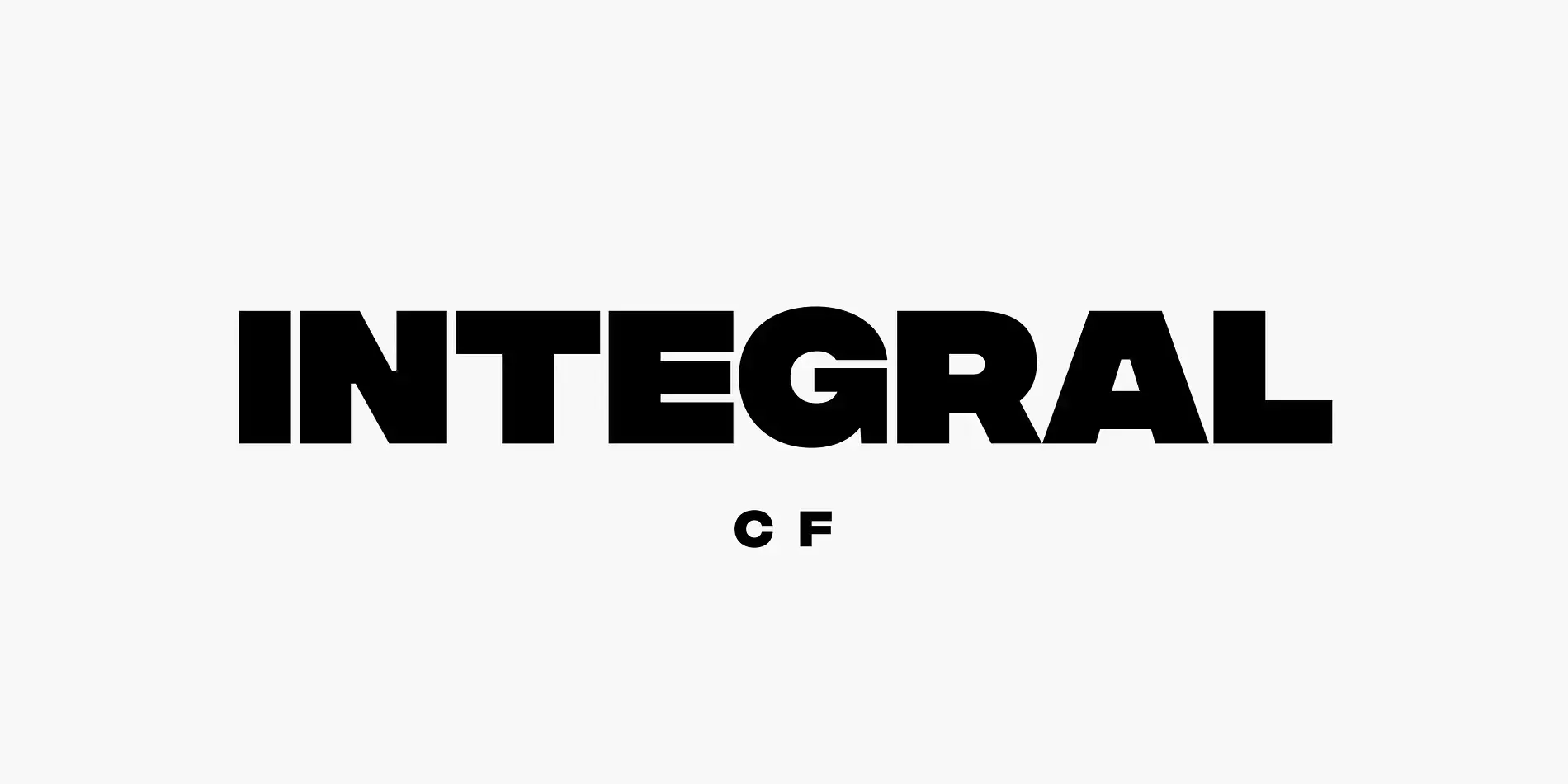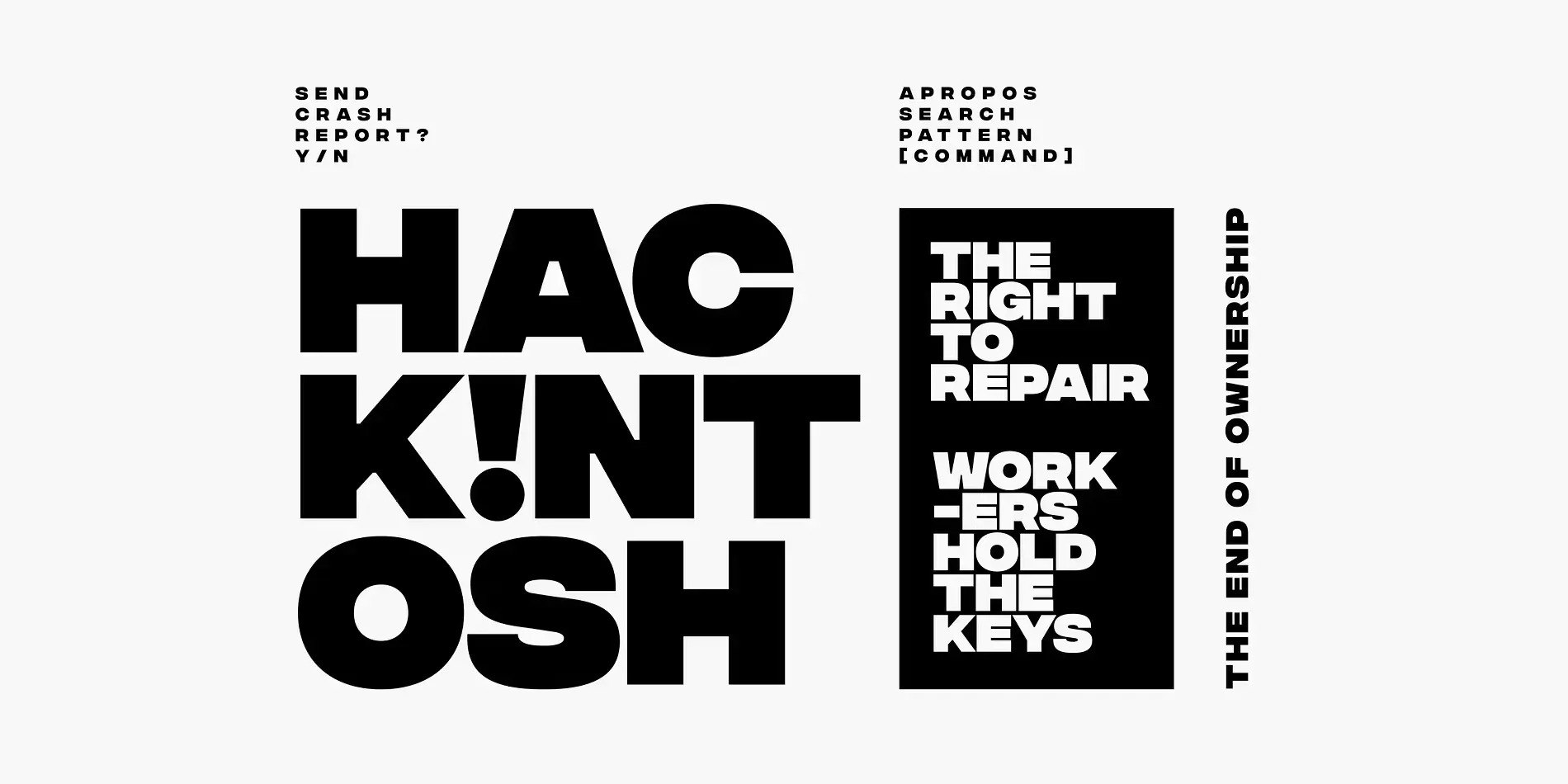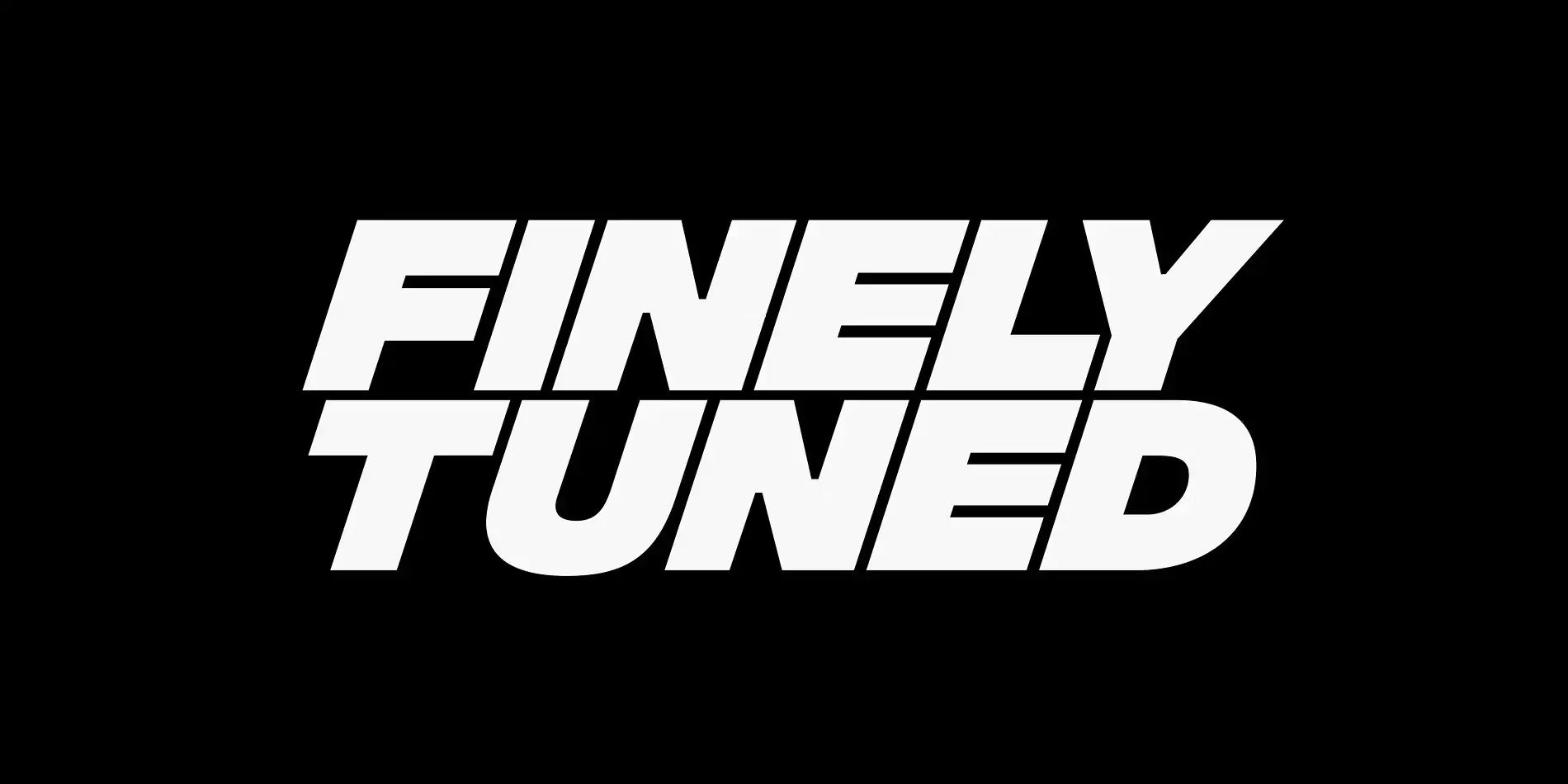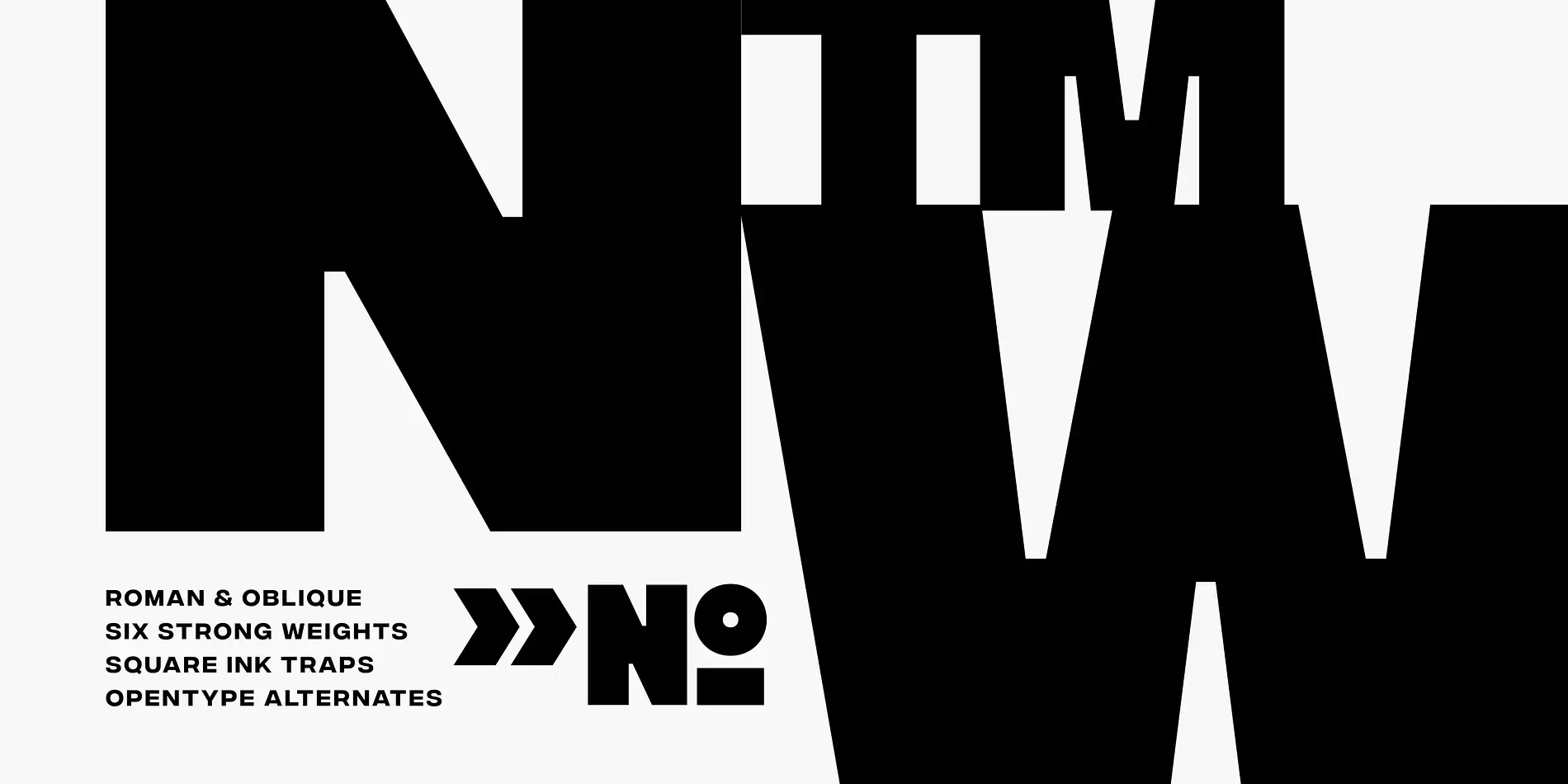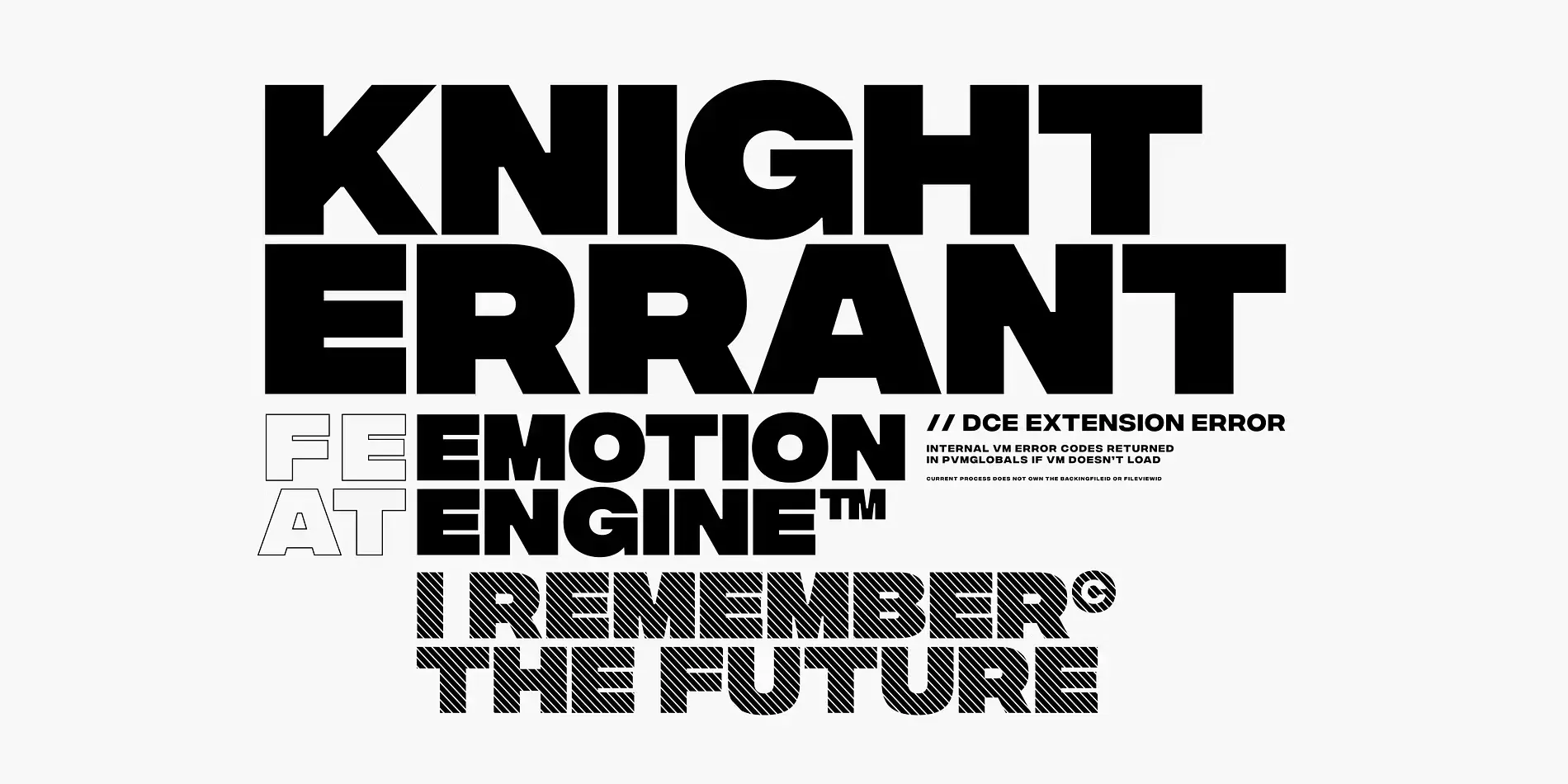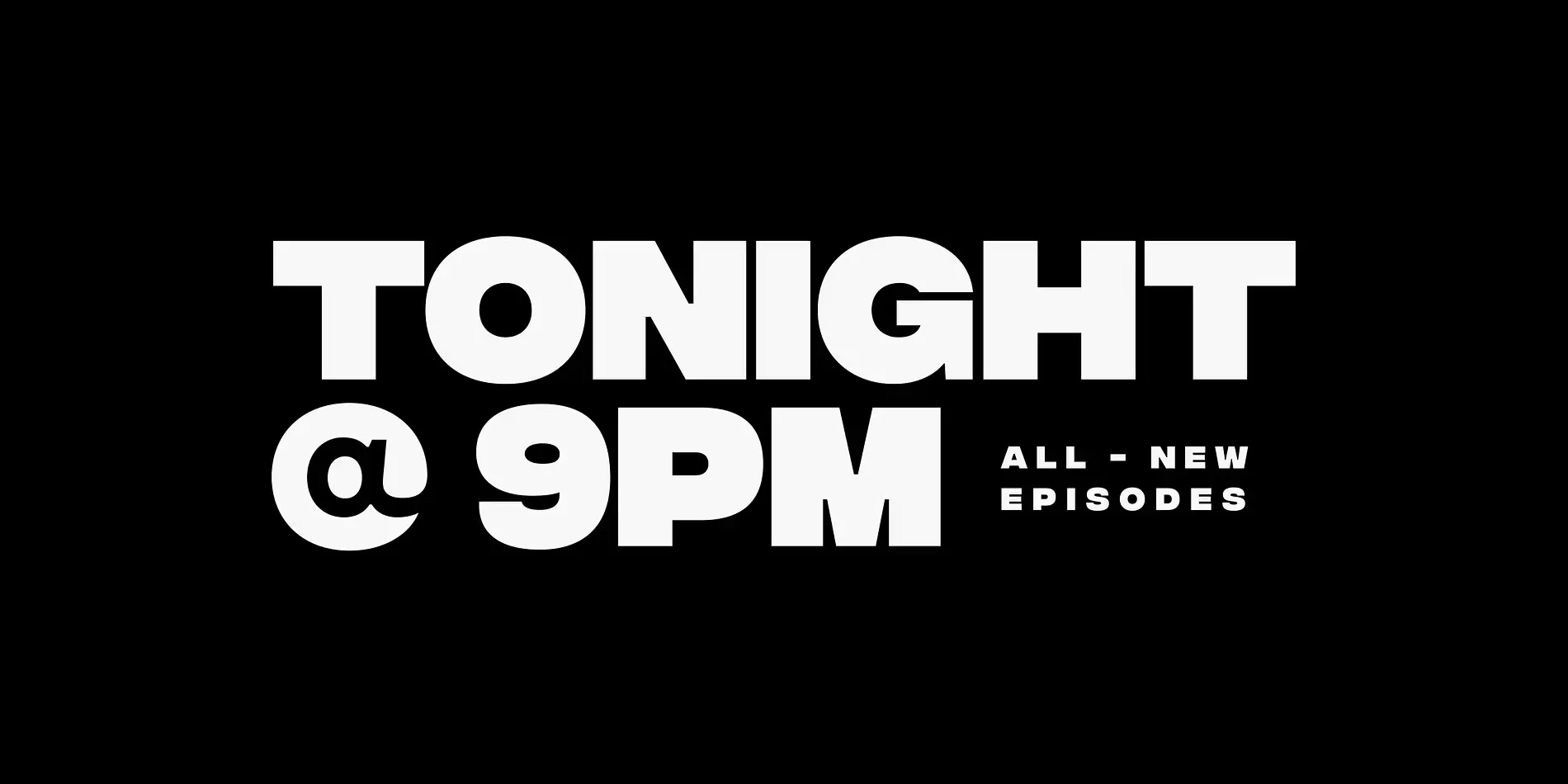
Integral
Integral Font Family
Integral CF is designed for maximum visual and emotional impact. Its six weights excel in posters, social media, headlines, titling, large-format print — and anywhere else you want to be noticed. Hidden among the straight lines and corporate confidence is a hint of roguish charm and character; Integral lends your words a strong voice while being a lot of fun to use.
six Weights in Latin & Stylistic Sets Script
Integral font by Connary Fagen Fonts — the upright sans-serif letters I, N, T, E, G, R, A, L, and below them the smaller upright sans-serif letters C and FIntegral font by Connary Fagen Fonts — the words “HACK!NTOSH”, “THE RIGHT TO REPAIR”, “WORKERS HOLD THE KEYS”, “THE END OF OWNERSHIP”, and other small text, all in a bold, sans-serif, upright typeface.Integral font by Connary Fagen Fonts — the words “FINELY TUNED” in a bold, italic, sans-serif typefaceIntegral font by Connary Fagen Fonts — the letters N, I, M, and W in a bold sans-serif, with the words “ROMAN & OBLIQUE”, “SIX STRONG WEIGHTS”, “SQUARE INK TRAPS”, and “OPENTYPE ALTERNATES” below, next to a double right arrow and the letters N and O with a degree symbol.Integral font by Connary Fagen Fonts — the words “20-VOLT IMPACT WRENCH” in upright sans-serif letters, and below them “MAX TORQUE 700 FT LBS” and “400 / 1200 / 1900 RPM MULTI-SPEED CONTROL” in italic sans-serif letters, separated by a diagonal line.Integral font by Connary Fagen Fonts — the words “KNIGHT ERRANT” in large, bold, black sans-serif letters, with “FE EMOTION AT ENGINE” below in a mix of outline and solid sans-serif, and “I REMEMBER THE FUTURE” in striped sans-serif letters.Integral font by Connary Fagen Fonts — the words “TONIGHT @ 9PM” in large, bold, sans-serif letters, with “ALL - NEW EPISODES” in smaller letters below and to the right.